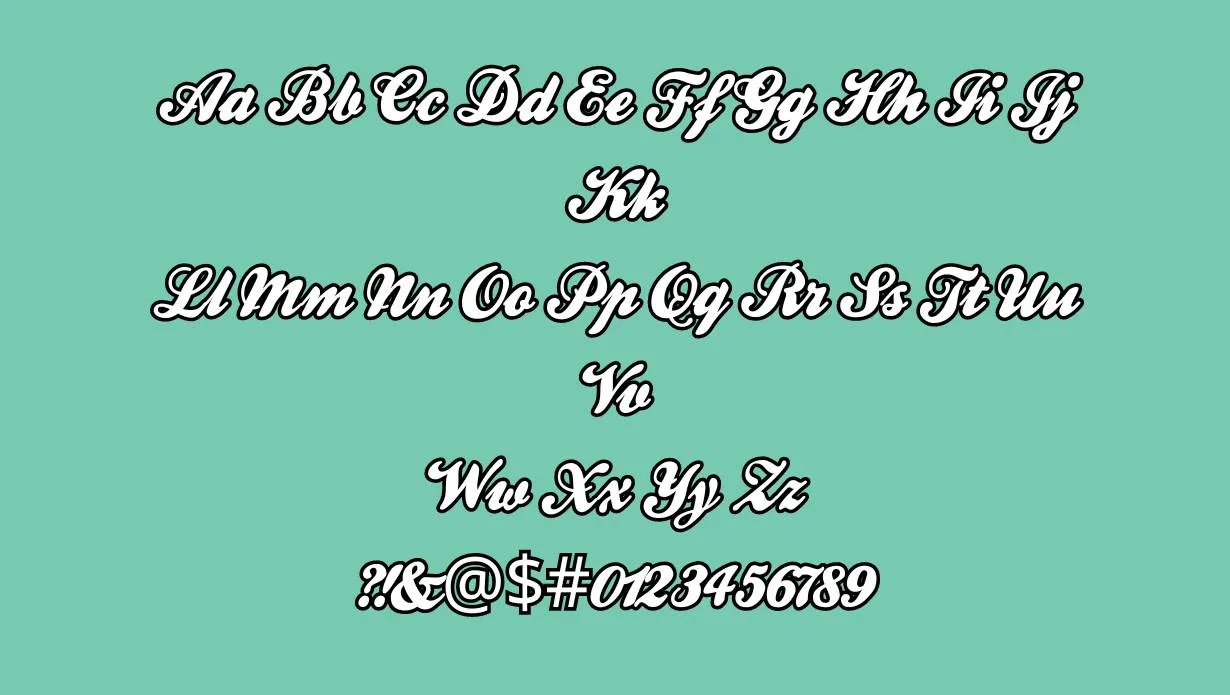
The Ballpark Font is a home run in the world of typography, capturing the excitement of the game. Its bold characters are perfect for creating energetic graphics in Adobe Photoshop, adding a sporty touch to web design with CSS, or designing spirited documents in MS Word.
This font effortlessly channels the thrill of the ballpark and the joy of the game.